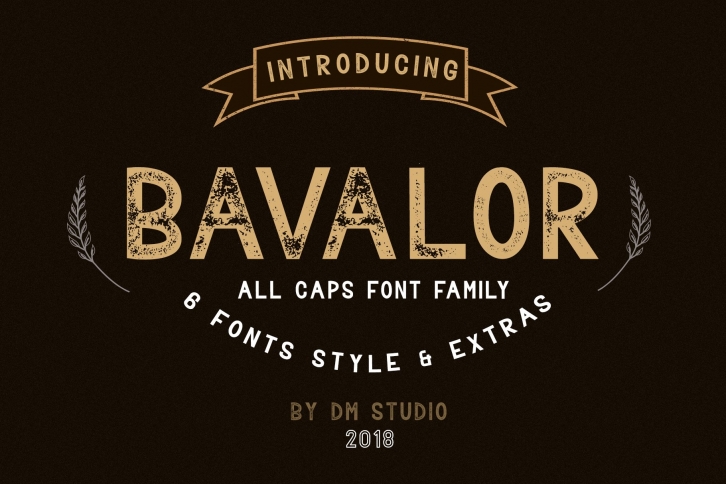
Introducing, BAVALOR the all in caps sans serif-font family. It includes regular, outline, and grunge version with normal & italic style. Bavalor has 6 OTF & TTF font files. Choose freely for your desired designs, pair between each version but also will great if you make it stand alone.This collection will create a unique, powerful design for any projects.
Bavalor's features :
• ALL IN CAPS Characters set
• Numerals
• Punctuation and symbols
• Multilingual supports
• Collection of useful shapes & banners